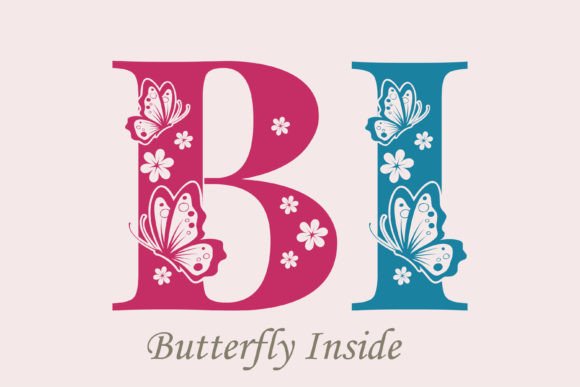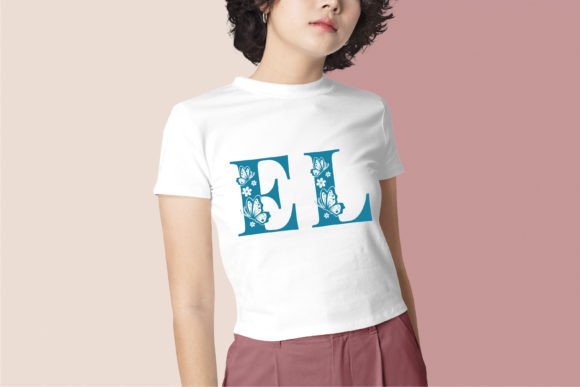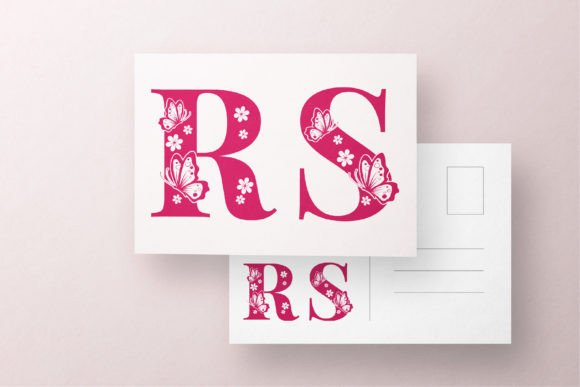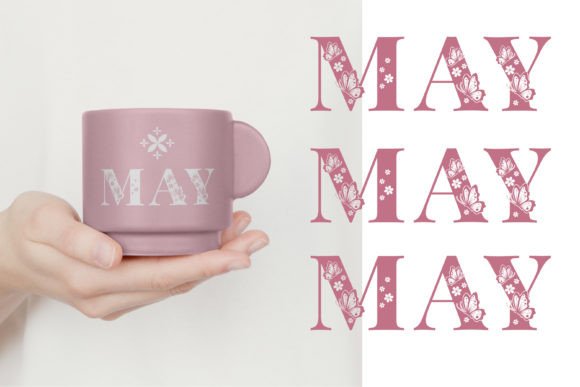
About the Butterfly Inside Font
The Butterfly Inside Font offers a perfect balance of form and function for your design needs. Butterfly Inside is an elegant decorative font, featuring lovely ornaments. Fall in love with its authentic feel and use it to create gorgeous stationary art, eye-catching social media posts, and cute greeting cards.
Butterfly Inside’s decorative style makes it ideal for short headlines, logos, and branding elements where its ornate details can shine. It’s perfect for projects requiring a touch of vintage charm or whimsical elegance, such as invitations, packaging for luxury goods, or social media graphics. However, its intricate nature makes it unsuitable for body text or UI elements; the ornamentation would be distracting at smaller sizes and hinder readability.
Consider pairing Butterfly Inside with a clean sans-serif like Open Sans for contrast and readability, especially when used in logos or headers alongside supporting text. Alternatively, a classic serif such as Garamond would complement its elegance while providing a grounding stability. For a more playful feel, a slightly rounded geometric sans-serif could work well.
The font exudes a sophisticated yet playful personality, best suited for brands focused on beauty, fashion, or artisanal goods. Its delicate ornamentation conveys a sense of luxury and handcrafted quality.